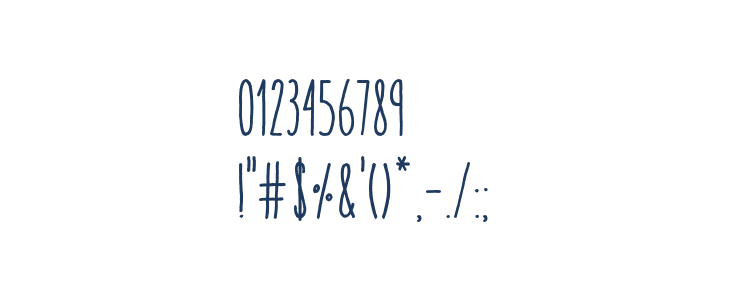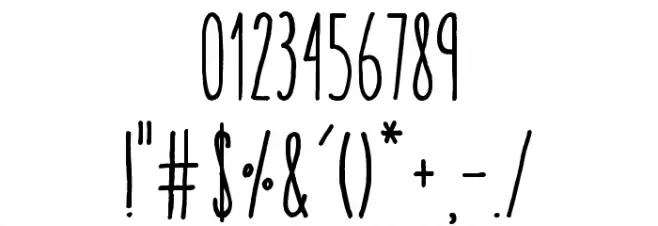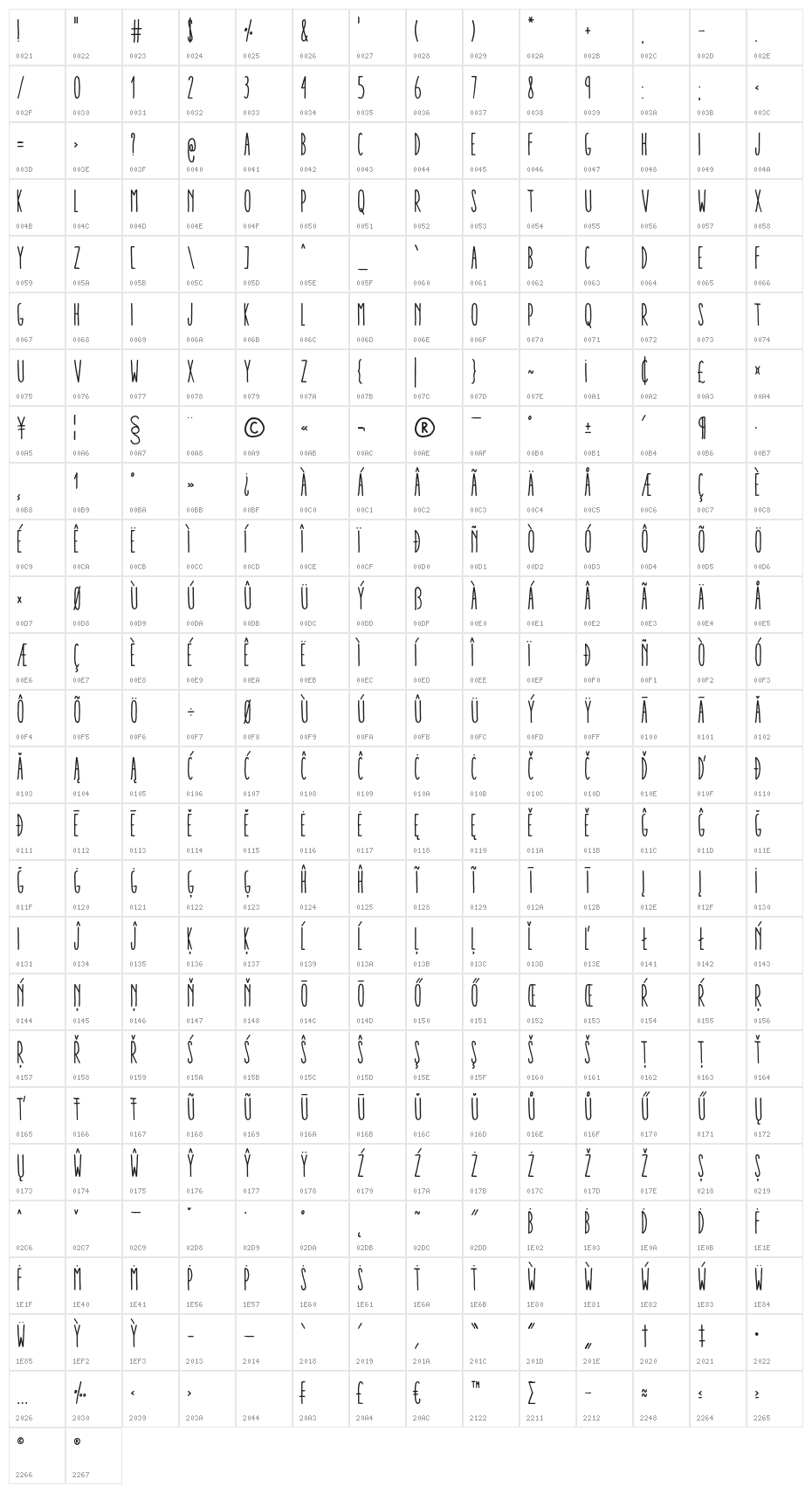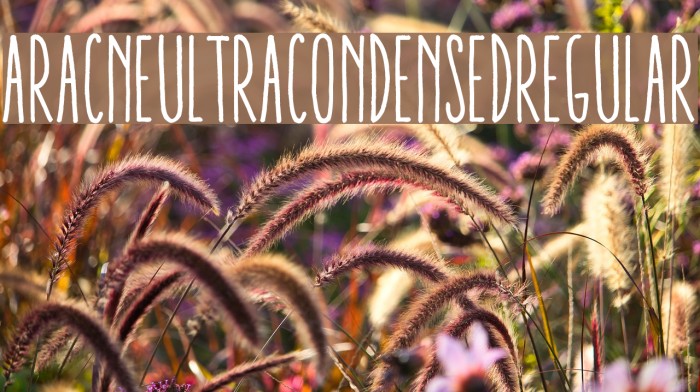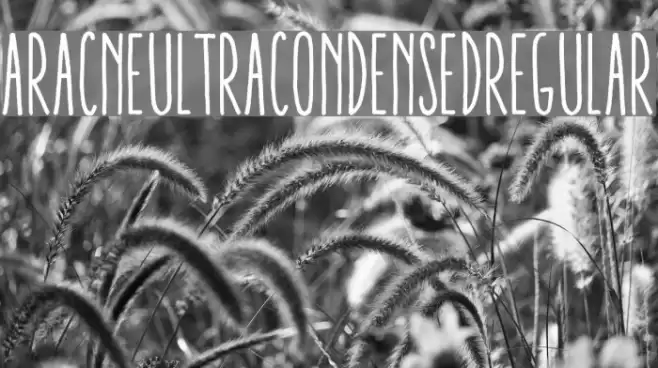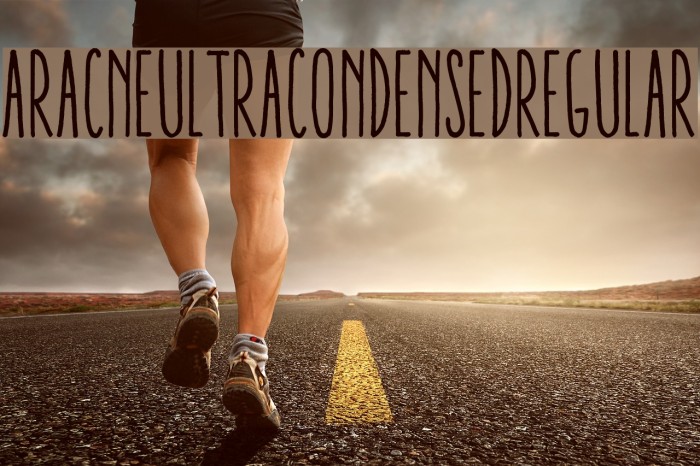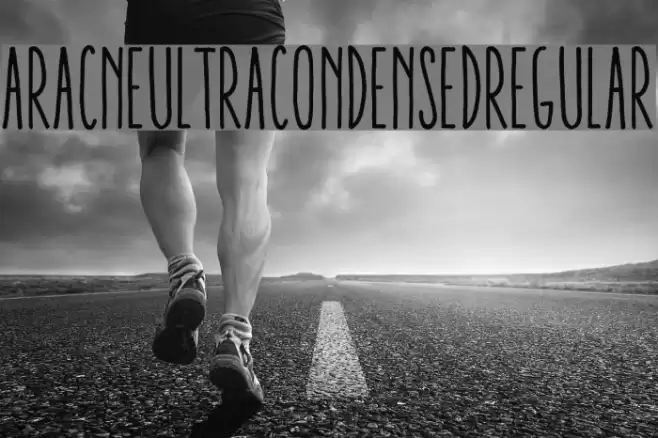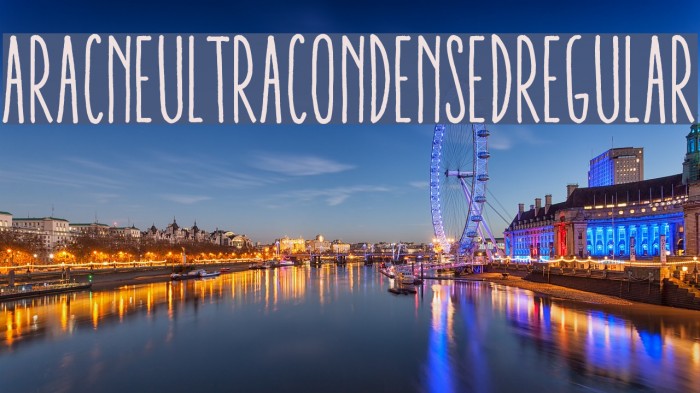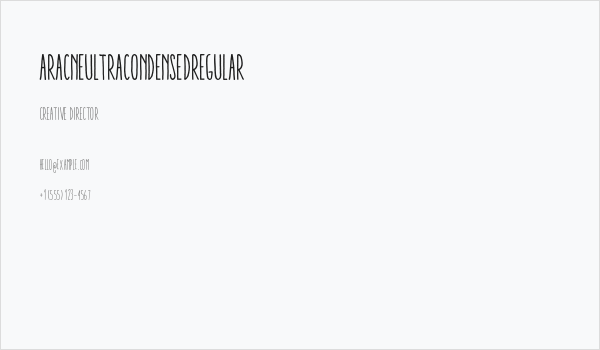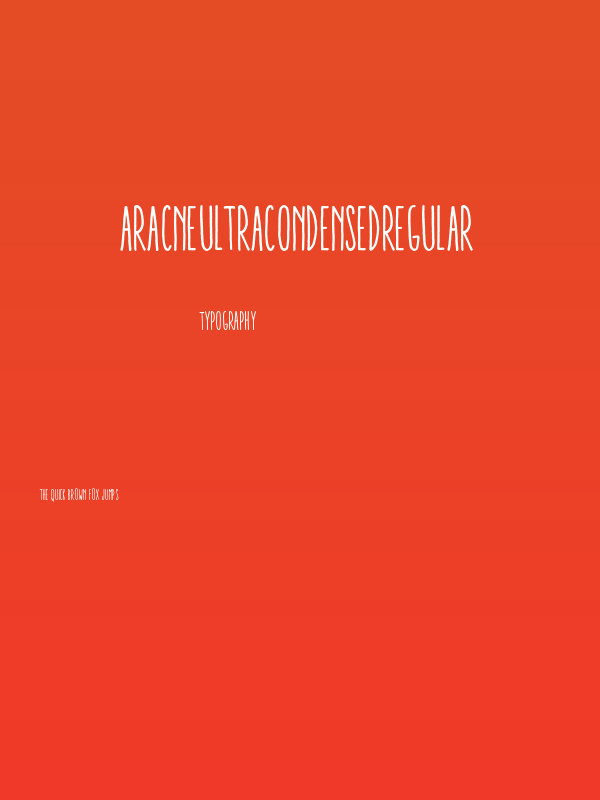
AracneUltraCondensedRegular Font
AracneUltraCondensedRegular Description
This font features an ultra-condensed style with tall, narrow characters that give it a unique and modern appearance. The strokes are consistent in width, providing a clean and uniform look. The uppercase and lowercase letters maintain a cohesive design, with slightly rounded edges that soften the overall aesthetic. The numerals and special characters are designed to match the letterforms, ensuring a harmonious appearance across all text. This font's condensed nature makes it ideal for space-saving applications while maintaining readability.
| Proposed Projects | Ideal for posters, headlines, and branding where space is limited but impact is essential. |